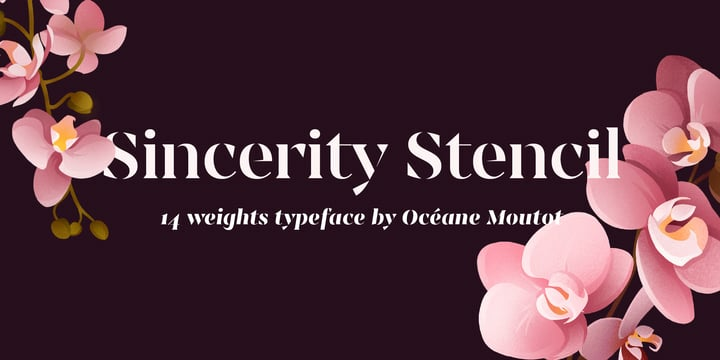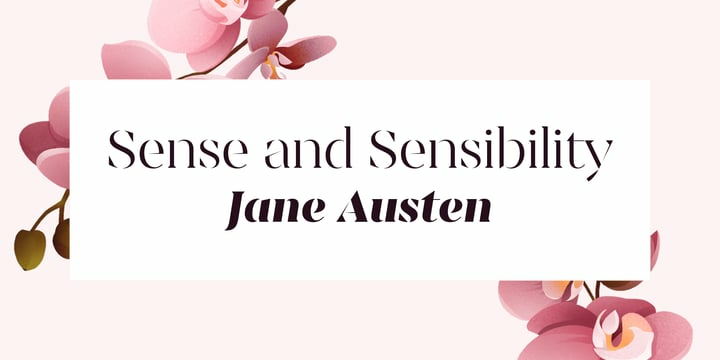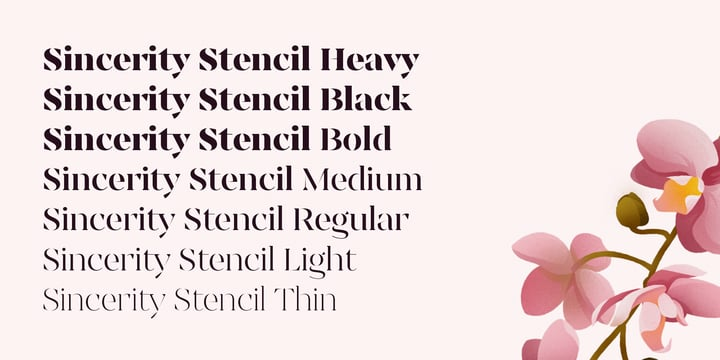
Sincerity Stencil Font Family
Sincerity Stencil Font FamilySincerity Stencil is the new extension of the typeface Sincerity. It’s a fierce and elegant typeface identified by its high contrast, sharp shapes and triangular. The stencil component of this new version will add originality to your designs.
Its large variety of glyphs, including accents, old-style numbers and ligatures will give uniqueness to your designs. It’s a great fit for branding, magazines, newspapers, and so on.
Sincerity Stencil is available in 16 styles, from thin to black in roman and italic.